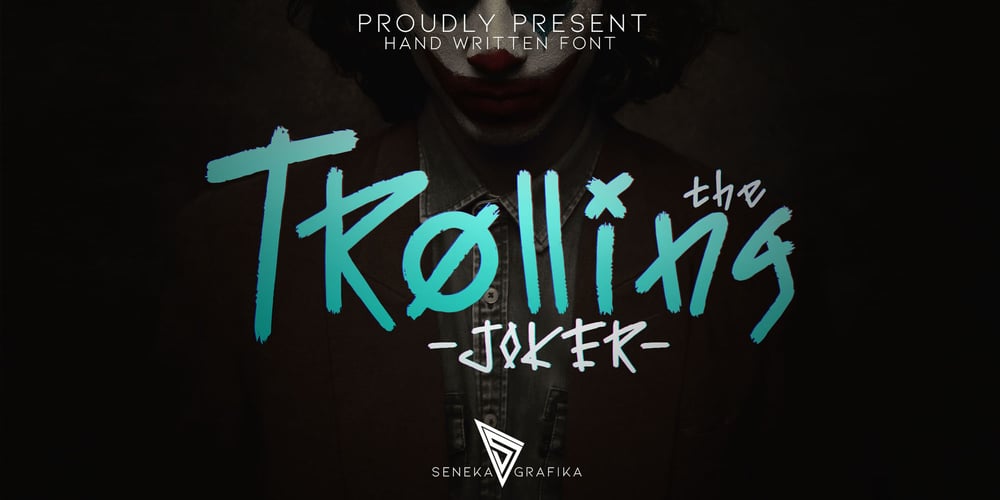
The Trolling Joker
The Trolling Joker font
The Trolling Joker Font Family was designed by Muhammad Helmi and published by Senekaligrafika. The Trolling Joker contains 1 styles and family package options. “Trolling joker” Has hard strokes and a unique styles that speak to instant street life sensations,it was inspired by the graffiti style.“Trolling joker” will help you to create special and touching typographical design for your highway and streetwear projects, for branding, labeling, clothing, movie title, album cover, logos and many more. It is really universal and modern font.The owner of endless possibilities!